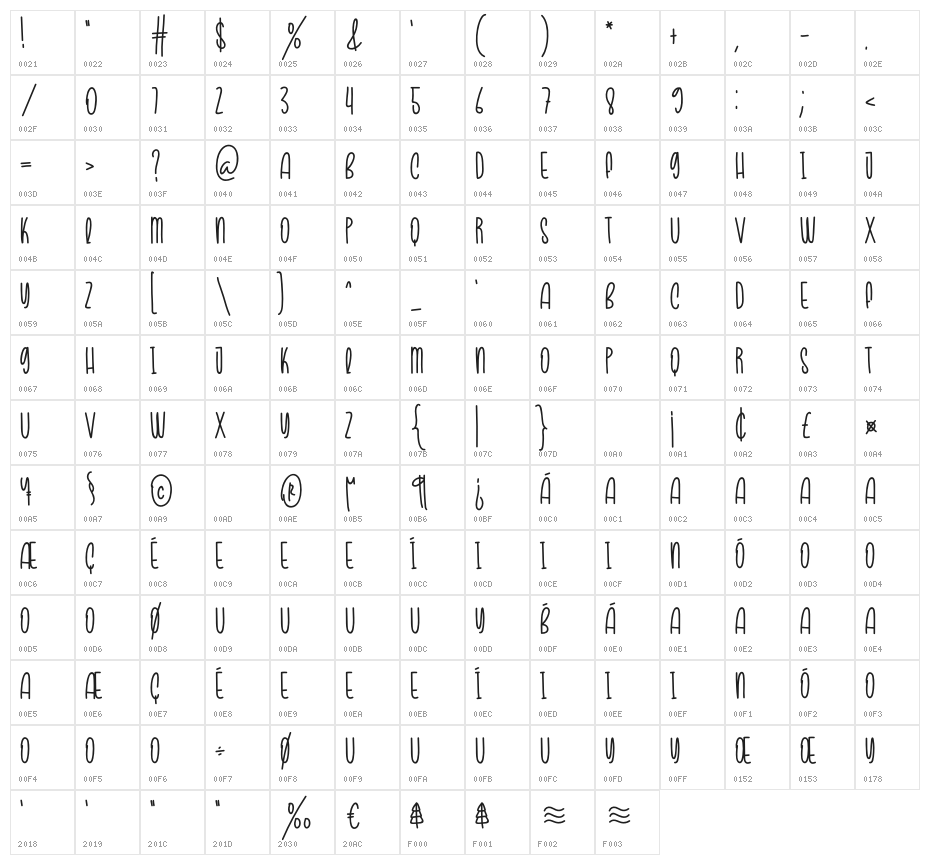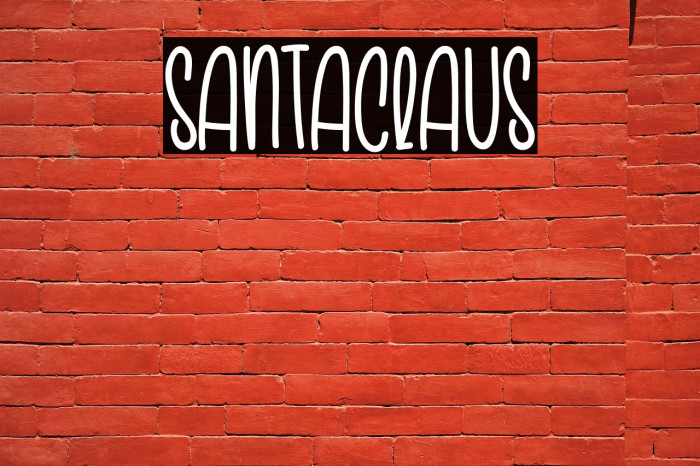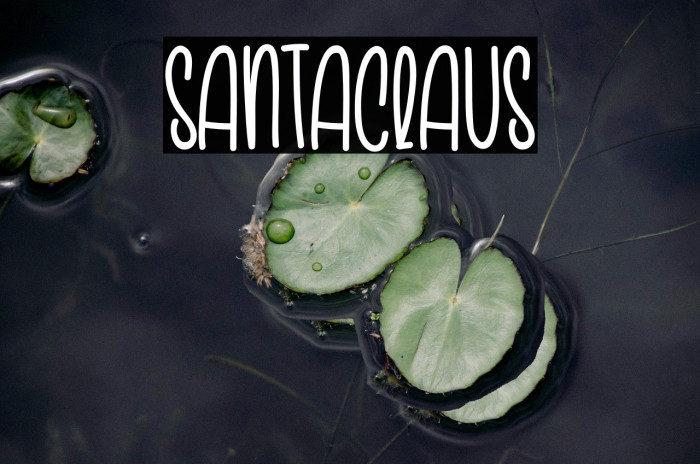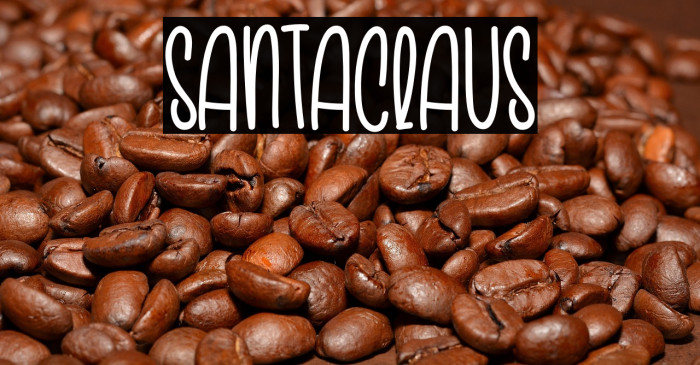
Santaclaus Font
Santaclaus Description
A tall, narrow handwritten font with a playful and casual style, featuring consistent stroke width and rounded edges.
| Use Case | Headlines, Display text |
| Proposed Projects | Greeting cards, children's books, casual invitations. |